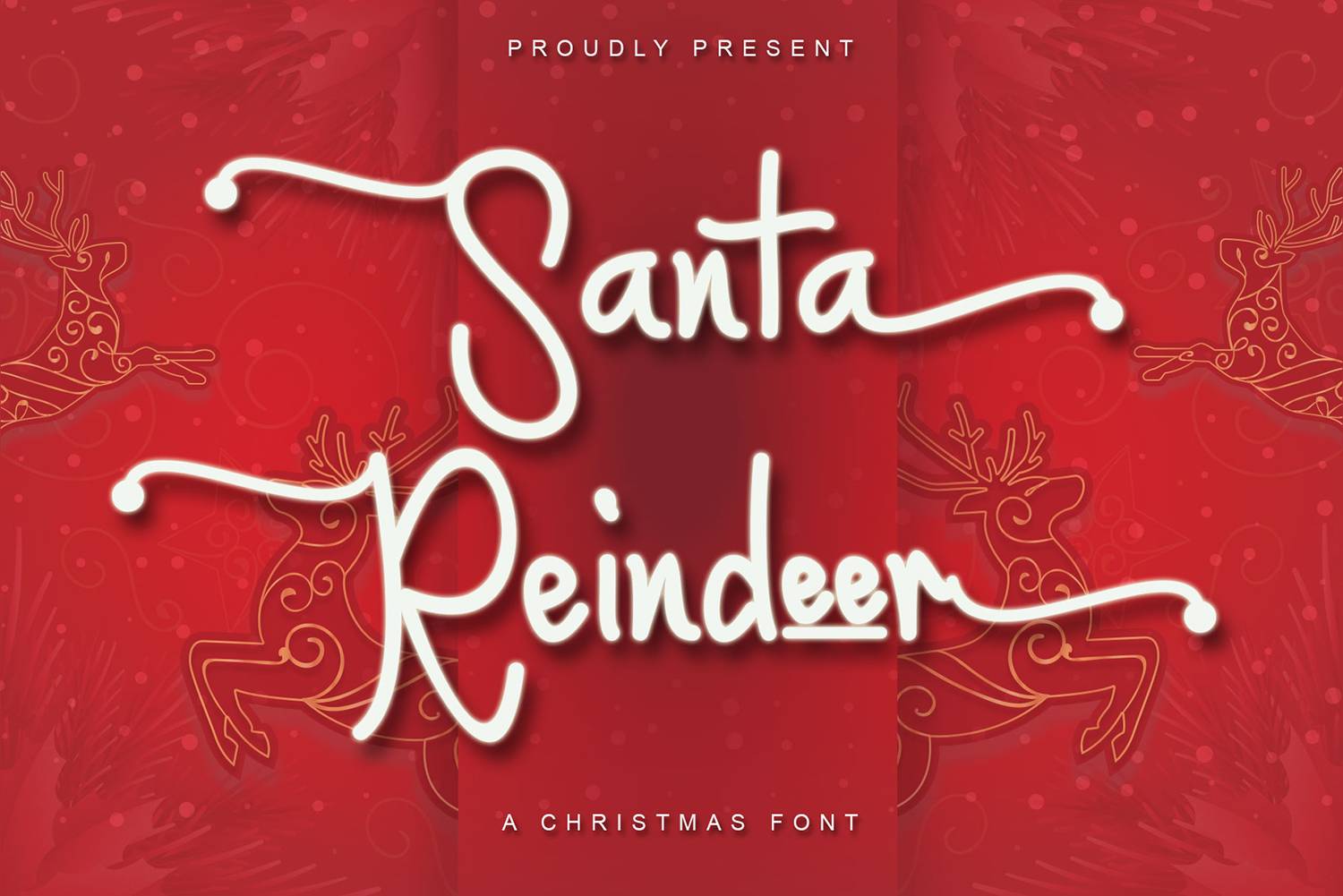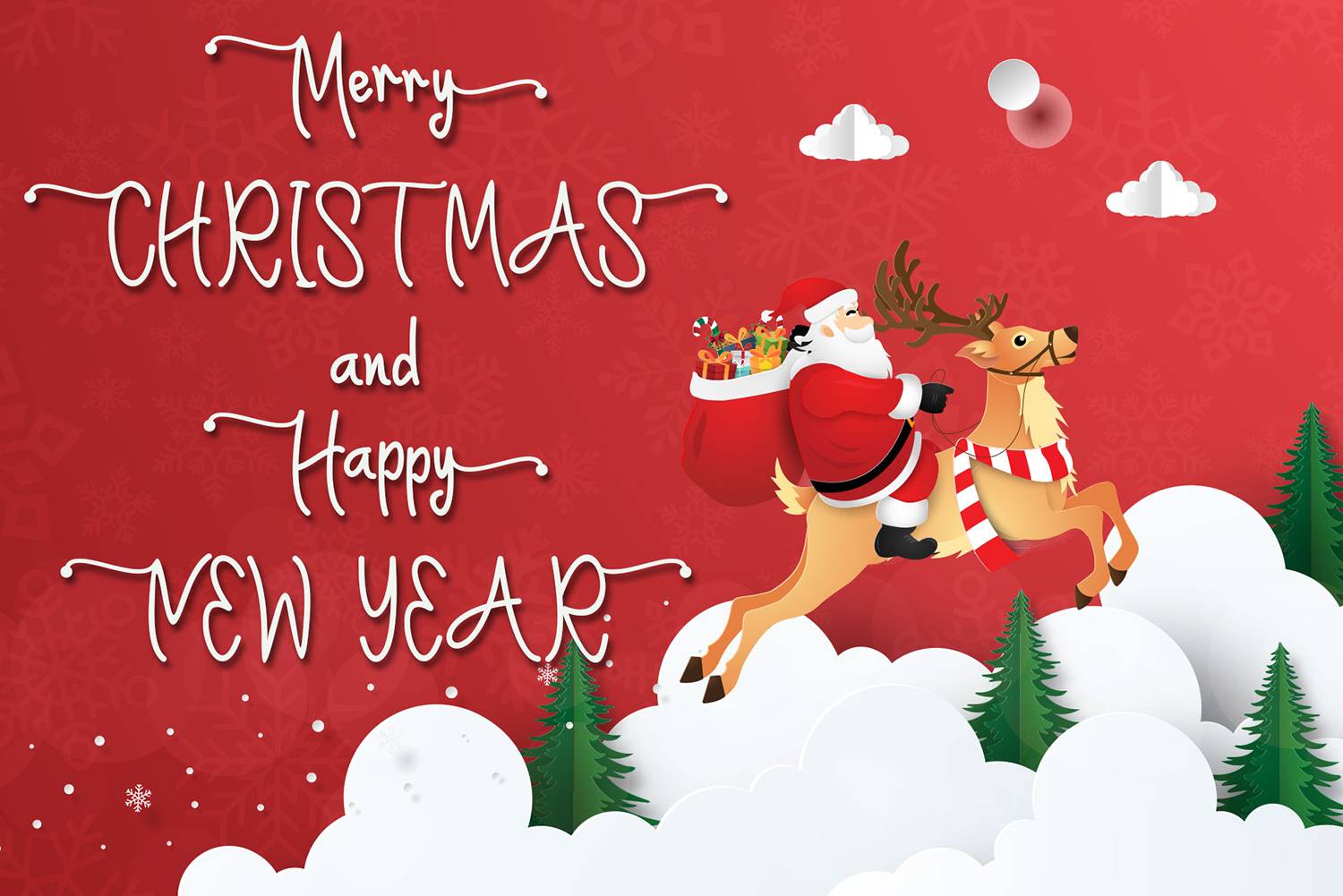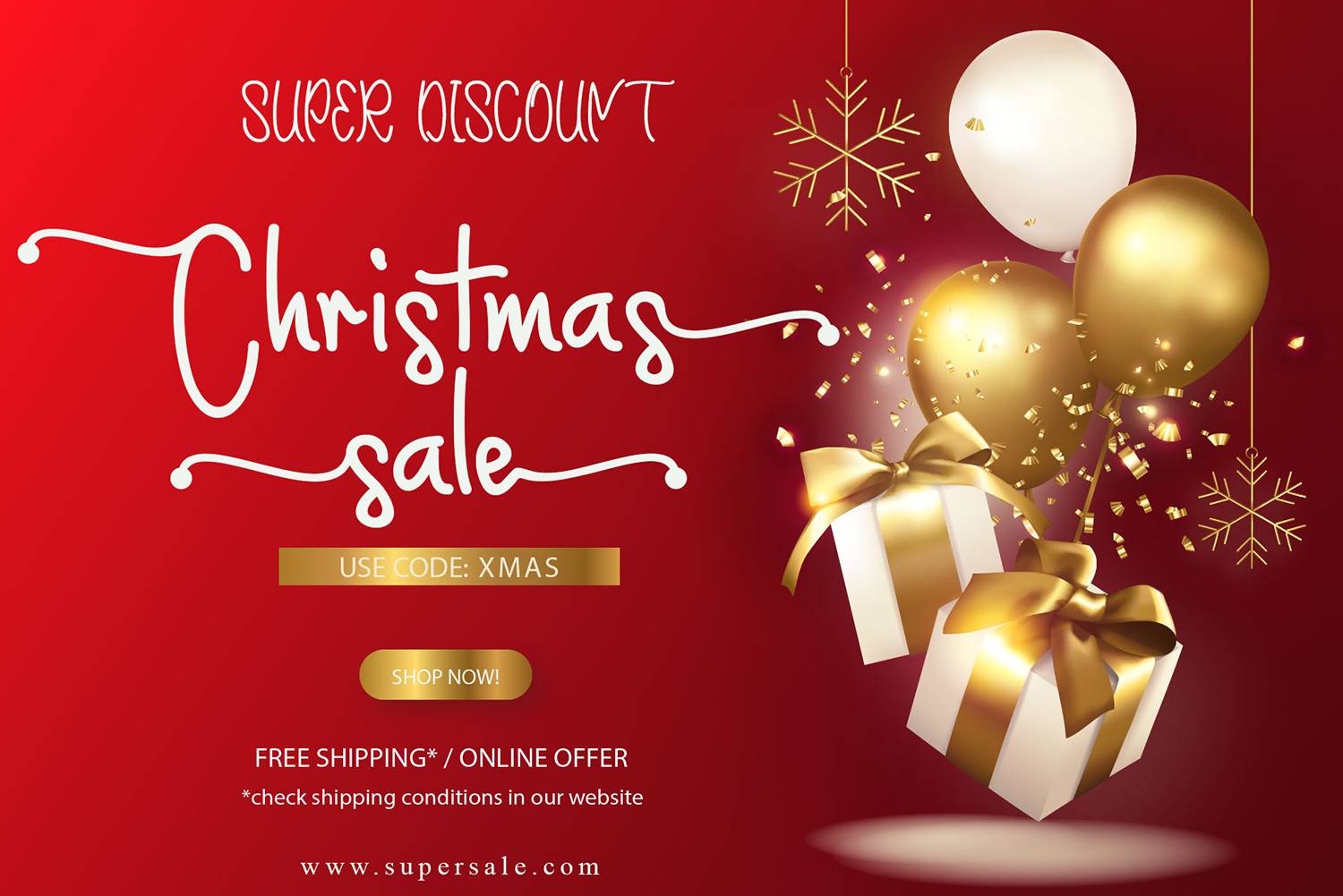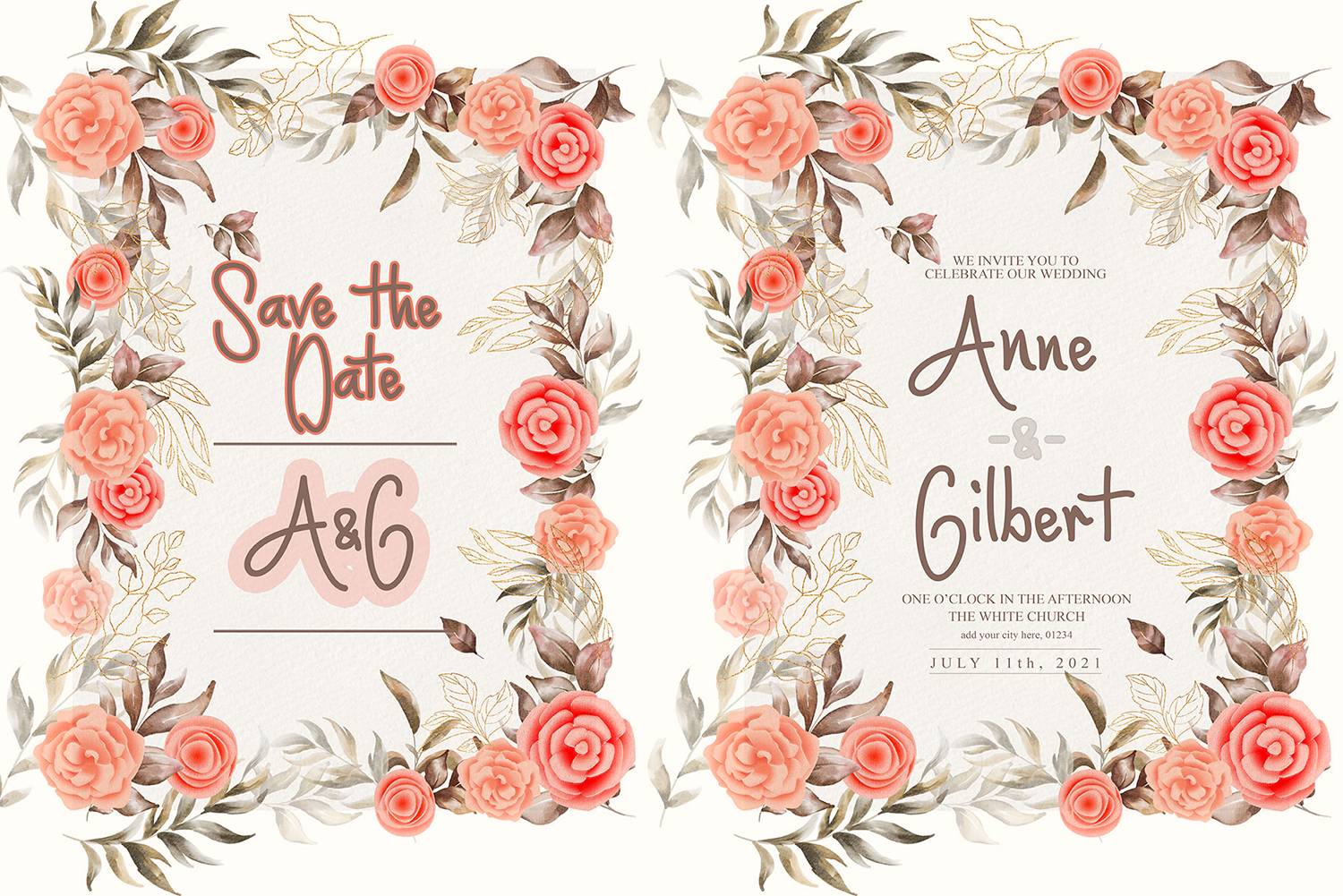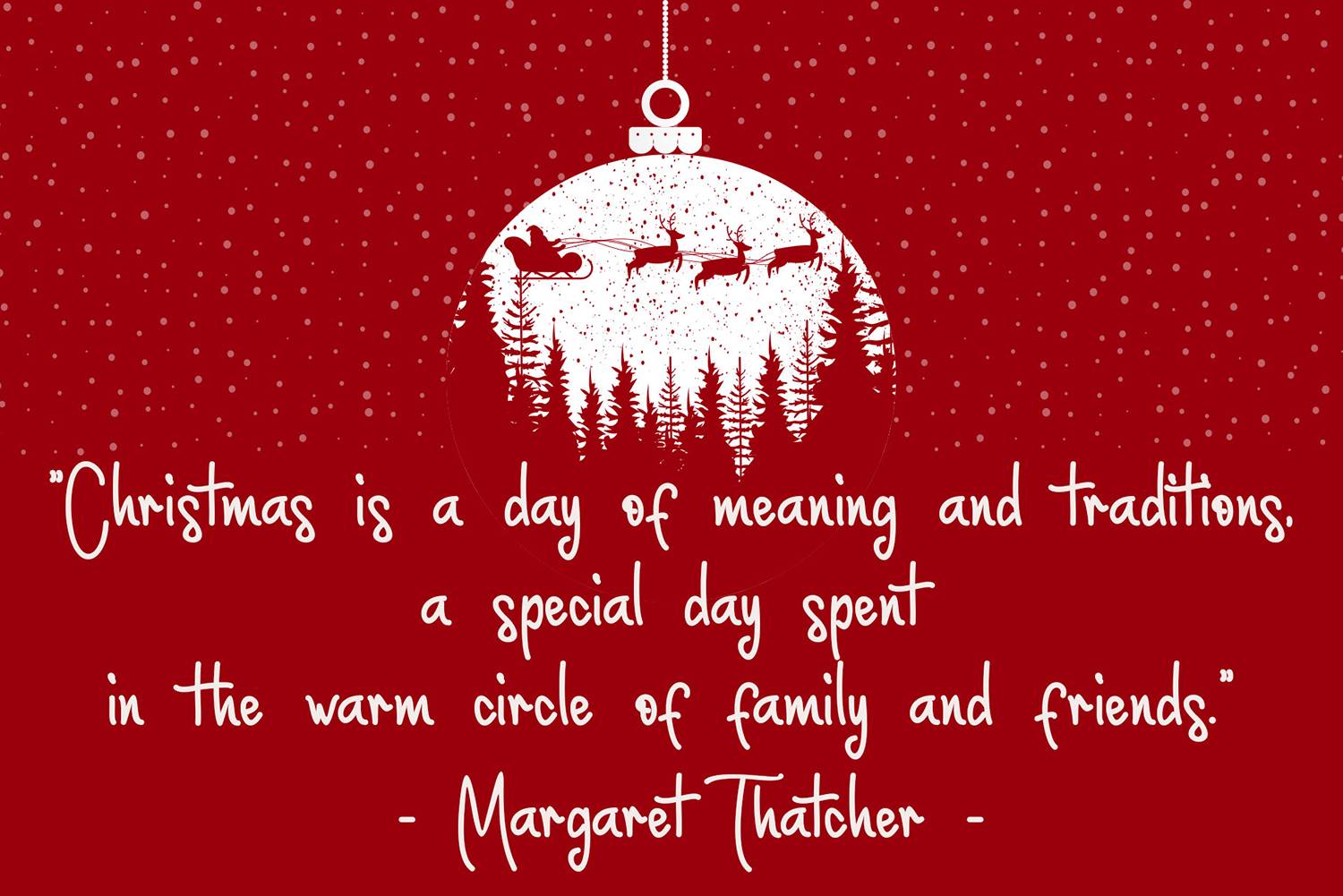
Santa Reindeer is a whimsical, hand-drawn script font with a playful and casual feel. Its tall, narrow letterforms and irregular strokes give it a charming, festive personality that works well for holiday-themed designs and lighthearted branding. This font is ideal for creative projects like greeting cards, invitations, and fun headlines where a friendly, informal touch is desired.
Santa Reindeer Font
About Santa Reindeer Font
| Font family | Santa Reindeer Font |